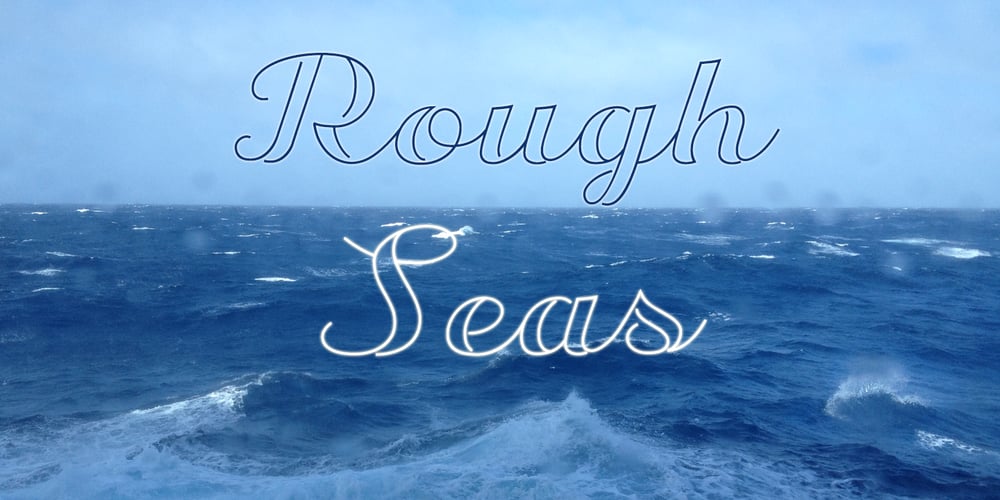
Transatlantic Cruise Font Family was designed by Roland Hüse and published by Roland Hüse Design. Transatlantic Cruise contains 1 styles and family package options. Transatlantic Cruise is an elegant outline script, would look best on Menu headlines, Invitations, Logos and Postcards (especially sent from cruise ships! 🙂 It contains basic latin western and central european language extensions and accents.